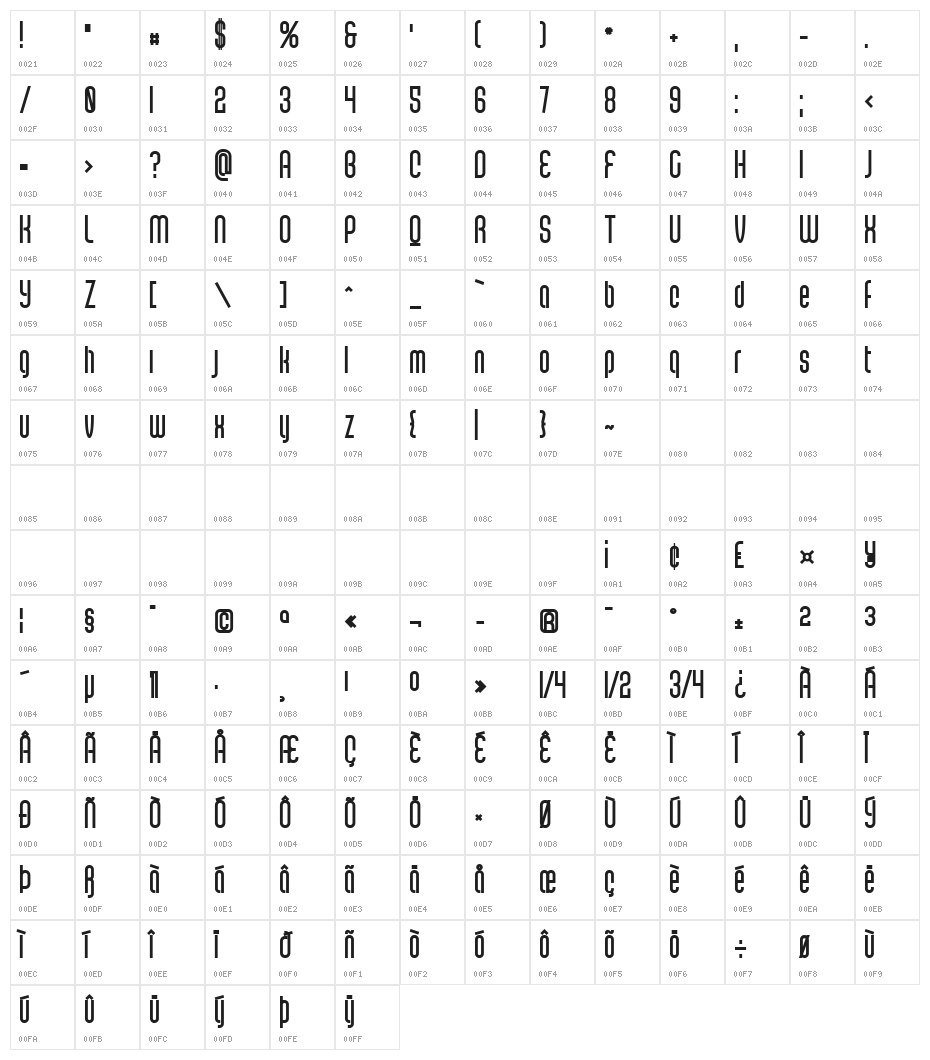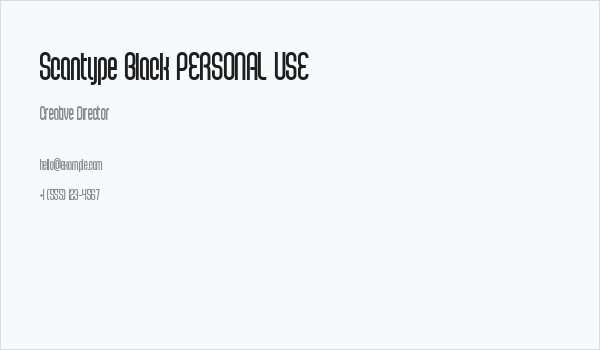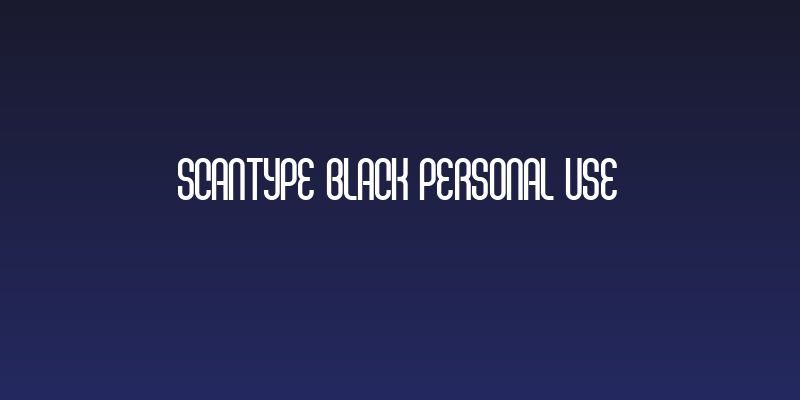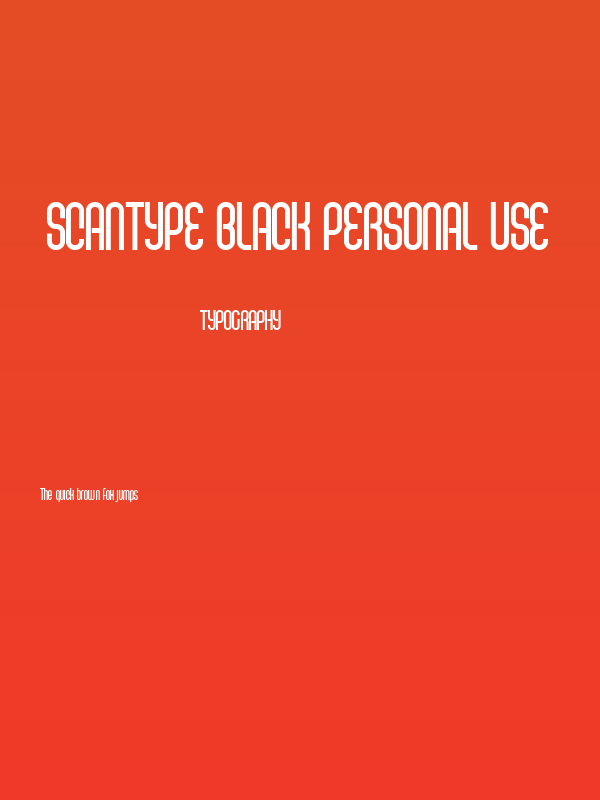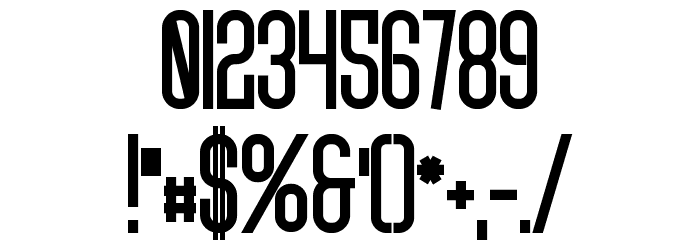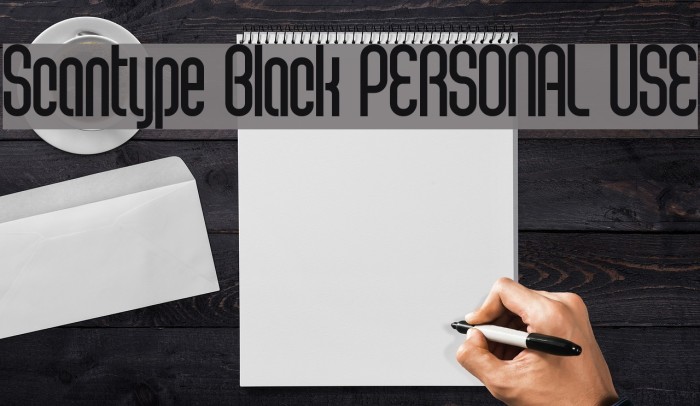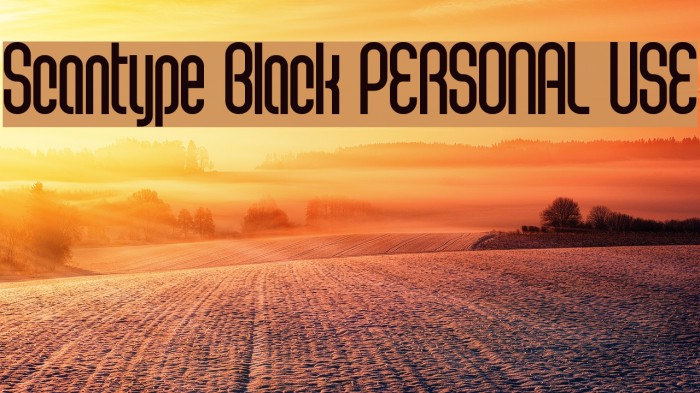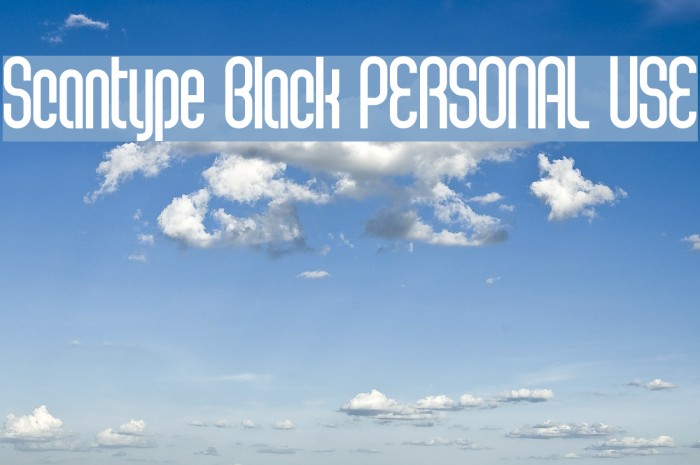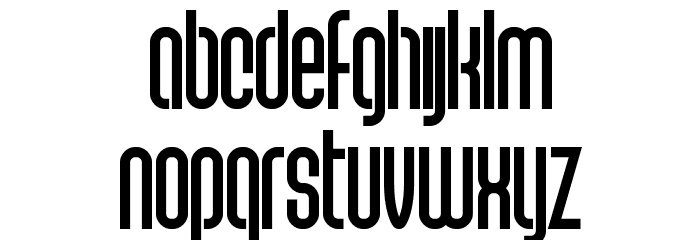
Scantype Black PERSONAL USE Font
Scantype Black PERSONAL USE Description
This font features a bold and modern design with elongated, narrow characters that create a striking visual impact. The uppercase and lowercase letters maintain a consistent height, giving the font a uniform appearance. The numerals and special characters are designed to match the overall style, ensuring cohesion across all elements. The font's clean lines and geometric shapes make it highly legible, even at smaller sizes, while its unique style adds a contemporary edge to any design.